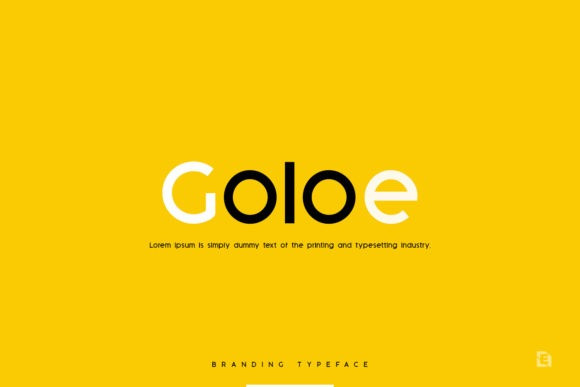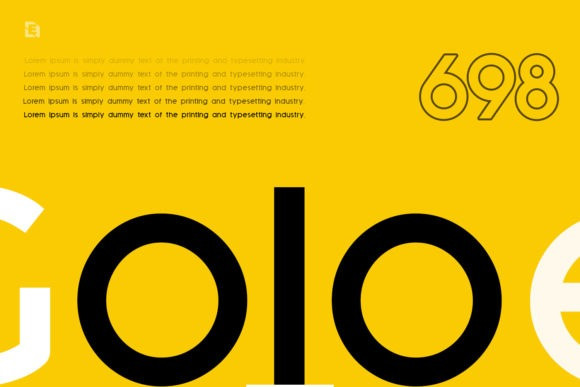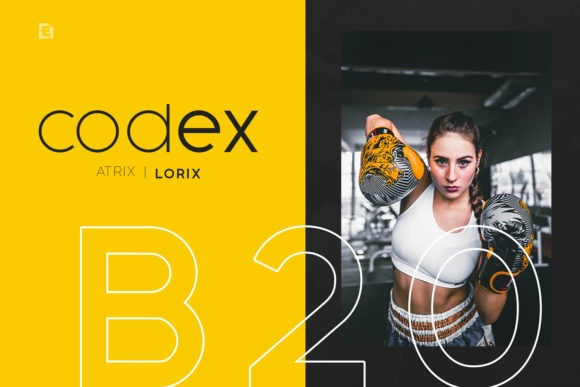
Goloe Font
Goloe is a minimal and modern display font. It can easily be matched to an incredibly large set of projects, so add it to your creative ideas and notice how it makes them stand out!